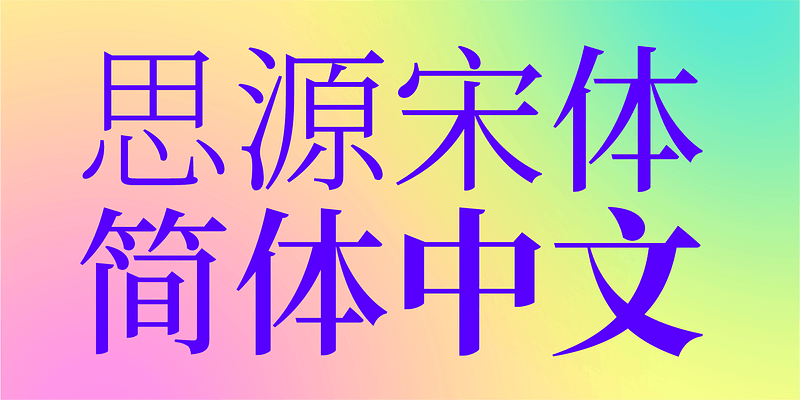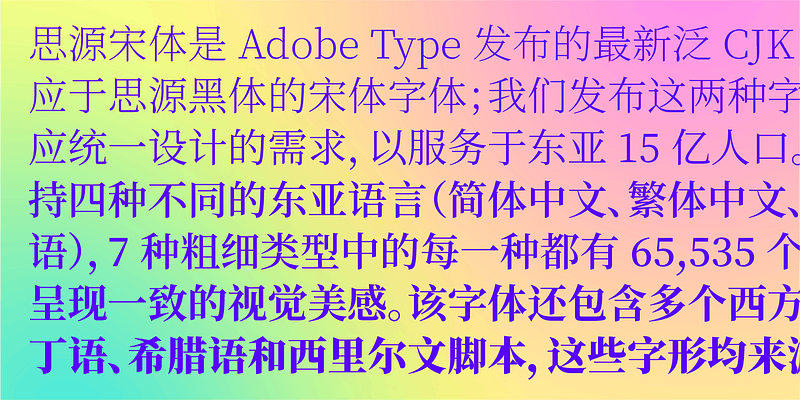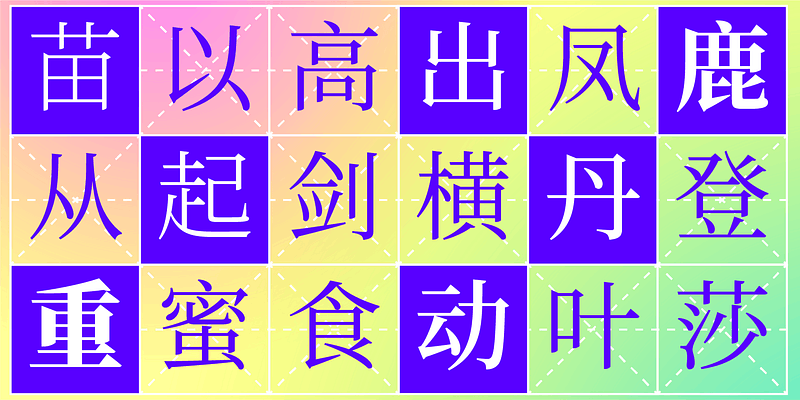
Source Han Serif is a modern Mincho-style typeface family, which is a counterpart to Source Han Sans. The family has seven weights. As each font is a Pan-CJK font supporting Japanese, Chinese and Korean, (and for Chinese, both Simplified and Traditional Chinese glyphs including those used in Hong Kong are supported), this typeface is recommended for users who need multilingual fonts. In the case of the Source Han Serif - Pan-CJK Simplified Chinese fonts, the glyphs displayed by default are for Simplified Chinese, but glyphs for the other languages can also be used in InDesign, Illustrator and Photoshop.
Simplified Chinese: All hanzi for GB 18030 2022 Implementation Level 2 which includes the 8,105 hanzi of Tōngyòng Guīfàn Hànzìbiǎo (通用规范汉字表)
Traditional Chinese — Taiwan: All Big Five hanzi (aka CNS 11643 Planes 1 and 2), all HKSCS-2016 hanzi (the glyphs may or may not adhere to the Taiwan MOE glyph standard), seven ETen hanzi, 15 additional hanzi
Traditional Chinese — Hong Kong: All Big Five hanzi (aka CNS 11643 Planes 1 and 2),all HKSCS-2016 hanzi, seven ETen hanzi, 15 additional hanzi
Japanese: All Adobe-Japan1-6 kanji (a superset of those in JIS X 0208, JIS X 0213 & JIS X 0212)
Korean: All contemporary (11,172) and 500 high-frequency archaic hangul syllables, conjoining hangul jamo (with full archaic hangul support), all KS X 1001 and KS X 1002 hanja (7,476), 466 additional hanja